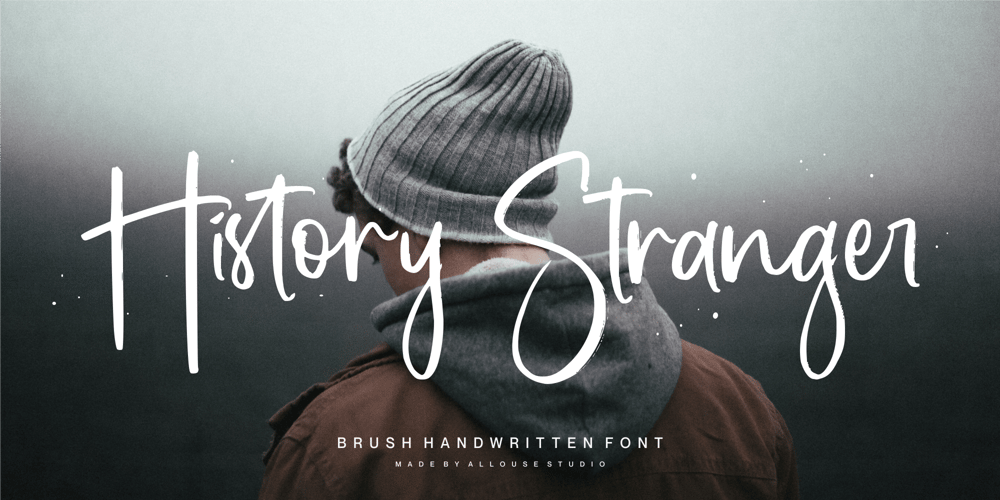
History Stranger
History Stranger font
History Stranger Font Family was designed by Fachrizal Yusuf and published by Allouse Studio. History Stranger contains 1 styles and family package options. Proudly Presenting, History Stranger A Brush Handwritten Font.History Stranger is perfect for any titles, logo, product packaging, branding project, megazine, social media, wedding, or just used to express words above the background.History Stranger also come with Multi-Lingual Support.Enjoy the font, feel free to comment or feedback, send me PM or email. Thank You!